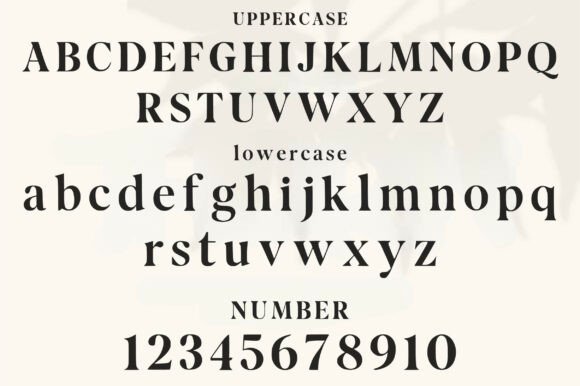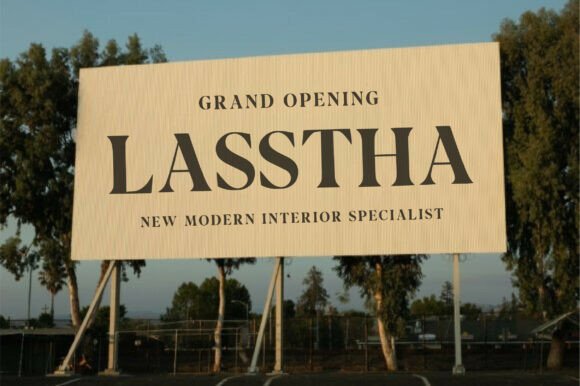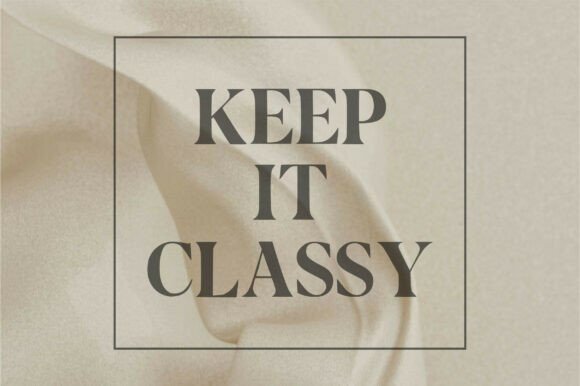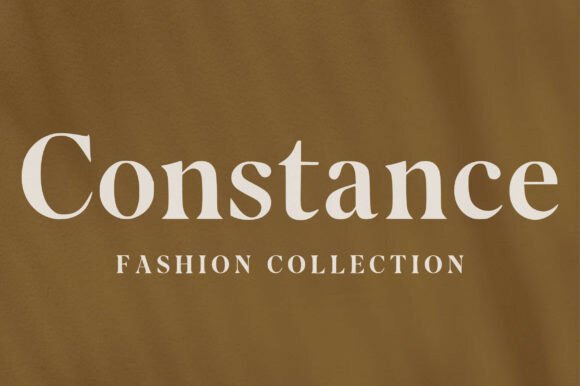
Introducing Araline Font: Elevate Your Designs with Timeless Elegance
In the world of typography, few fonts manage to strike a balance between classic sophistication and modern allure. Araline Font is one such exceptional typeface that seamlessly merges the best of both worlds. This elegant serif font is designed to bring a touch of refinement and luxury to any design project, making it a perfect choice for discerning designers and crafters.
The Characteristics of Araline Font
Araline’s design is marked by its refined letterforms, smooth curves, and high contrast strokes. These features combine to create a visually stunning font that exudes elegance and poise. The serif details add a classic touch, while the overall design ensures the font remains contemporary and versatile. Whether you’re working on a logo, magazine title, wedding invitation, or luxury branding project, Araline’s sophisticated aesthetic is sure to impress.
Perfect for High-End Design Projects
Araline’s unique blend of traditional and modern elements makes it an ideal choice for high-end design projects. Here are some of the areas where Araline truly shines:
- Logos: Create a lasting impression with a logo that embodies sophistication and elegance. Araline’s distinctive letterforms ensure your brand stands out.
- Magazine Titles: Add a touch of luxury to your magazine’s cover with Araline’s refined and classy appearance.
- Wedding Invitations: Make your wedding invitations truly special with a font that conveys romance and sophistication.
- Luxury Branding: Elevate your luxury brand with a font that reflects high-end quality and style.
Versatility in Typography
Araline is not just limited to headlines; it can also be used for stylish typography in various design projects. Its legibility and aesthetic appeal make it suitable for both large and small text sizes. Whether you’re designing a brochure, creating a website, or crafting a social media graphic, Araline adds a touch of class and beauty to your work.
Why Choose Araline Font?
With so many fonts available, why should you choose Araline for your projects? Here are a few compelling reasons:
- Timeless Appeal: Araline’s classic design ensures it remains relevant for years to come, avoiding the fleeting nature of trendy fonts.
- Versatility: From luxury branding to elegant wedding invitations, Araline adapts seamlessly to various design needs.
- Elegance: The font’s refined and sophisticated look adds an instant touch of elegance to any design.
- Legibility: Despite its elegant design, Araline maintains excellent legibility, making it suitable for both headlines and body text.
How to Use Araline Font Effectively
To maximize the impact of Araline in your designs, consider the following tips:
- Pair with Complementary Fonts: Combine Araline with sans-serif fonts for a modern contrast or with other serif fonts for a layered, classic look.
- Experiment with Sizes: Use Araline in various sizes to create visual hierarchy and emphasize key elements in your design.
- Adjust Line Spacing: Ensure adequate line spacing to maintain readability, especially in longer texts.
- Play with Colors: While Araline looks stunning in black, experiment with different colors to match your brand’s palette or design theme.
Araline Font is a versatile and elegant serif typeface that brings a touch of timeless sophistication to any design project. Its refined letterforms, smooth curves, and high contrast strokes make it perfect for a variety of applications, from logos and magazine titles to wedding invitations and luxury branding. With its classic appeal and modern charm, Araline is an excellent choice for designers and crafters looking to elevate their work. Discover the beauty and versatility of Araline Font and take your designs to the next level.